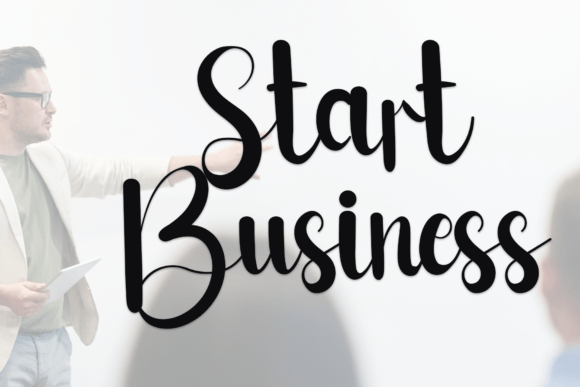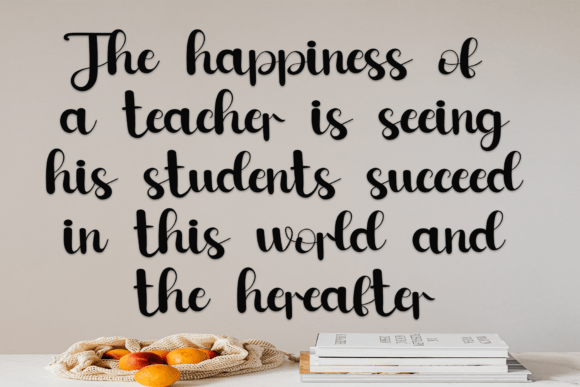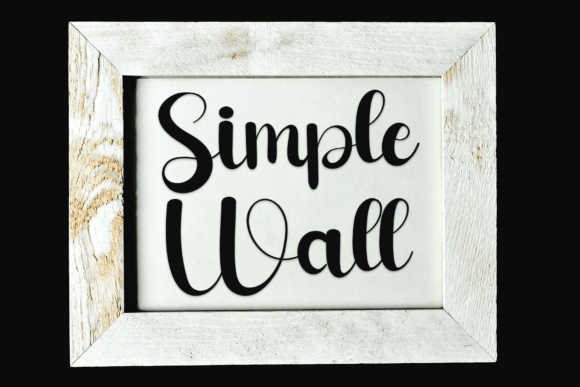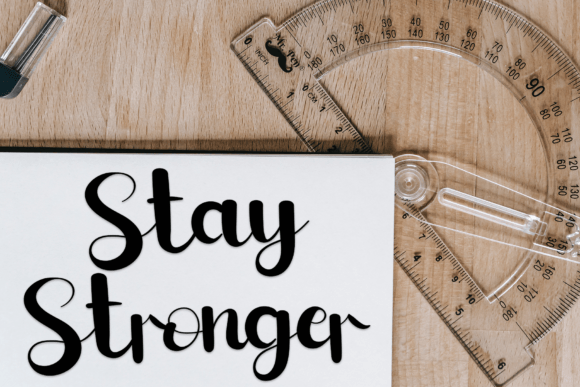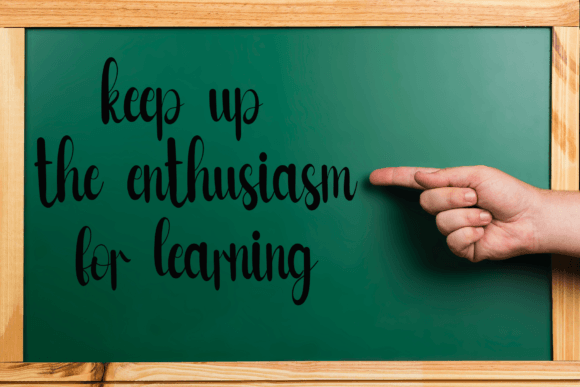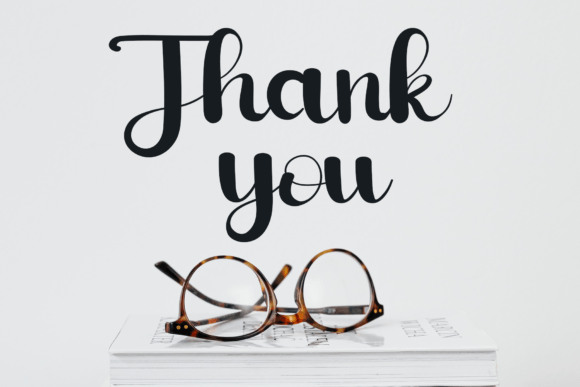
Happyteacher Font: Elevate Your Designs with a Modern Handwritten Style
Are you tired of using the same old fonts in your designs? Look no further than the Happyteacher Font, a cool handwritten font with a modern vibe and spotless form that’s inspired by classic calligraphy. This beautifully crafted font is designed to enhance the beauty of your projects, making it perfect for designers and crafters looking to add a personal touch to their work.
The Inspiration Behind Happyteacher Font
HappyTeacher is a font that’s deeply rooted in tradition, yet boasts a fresh and modern aesthetic. Its creator drew inspiration from classic calligraphy, carefully balancing the thickness and thinness of the strokes to create a truly unique and eye-catching effect. The result is a font that’s not too thin and not too thick, but rather perfectly balanced and varied, making it suitable for a wide range of design applications.
Key Features of Happyteacher Font
So, what sets Happyteacher Font apart from other fonts on the market? Here are just a few of its key features:
- Modern vibe: Happyteacher Font has a distinctly modern feel that’s perfect for designers looking to create fresh and contemporary designs.
- Spotless form: The font’s clean and precise lines make it easy to read and visually appealing.
- Balanced and varied: The font’s carefully crafted strokes are neither too thin nor too thick, creating a beautiful and harmonious effect.
- Inspired by classic calligraphy: Happyteacher Font pays homage to traditional calligraphy, while still offering a unique and modern twist.
Uses for Happyteacher Font
HappyTeacher Font is an incredibly versatile font that can be used in a wide range of design applications, including:
- Branding and logos: Create a lasting impression with a custom logo that showcases your brand’s personality.
- Digital marketing materials: Elevate your social media graphics, email headers, and other digital marketing materials with a modern and eye-catching font.
- Packaging design: Stand out on store shelves with beautifully designed packaging that features Happyteacher Font.
- Stationery and cards: Add a personal touch to your stationery, greeting cards, and invitations with this lovely handwritten font.
Why Choose Happyteacher Font?
With so many fonts to choose from, why should you opt for Happyteacher Font? Here are just a few compelling reasons:
- Unique and distinctive: Happyteacher Font offers a fresh and modern take on traditional calligraphy, making it perfect for designers looking to stand out from the crowd.
- Easy to read: The font’s clean lines and balanced strokes make it easy to read, even at small sizes.
- Highly versatile: Happyteacher Font can be used in a wide range of design applications, from digital marketing materials to packaging design.
In conclusion, Happyteacher Font is a beautiful and versatile font that’s perfect for designers and crafters looking to add a personal touch to their work. With its modern vibe, spotless form, and balanced strokes, this font is sure to elevate the beauty of your projects and help you stand out from the crowd. So why wait? Download Happyteacher Font today and start creating stunning designs that showcase your unique style and creativity.